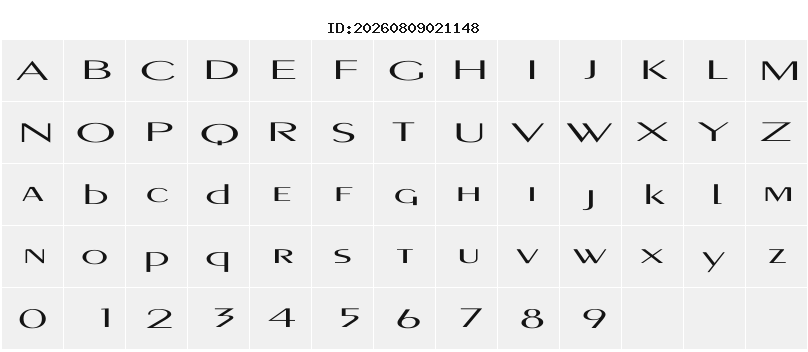
• Font Name: PigNoseTyp Wd
• Full Font Name: PigNoseTyp Wd
About PigNoseTyp Wd.ttf
PigNoseTyp Wd.ttf is a modern, elegant sans-serif font designed for ultimate readability and visual harmony. Perfect for branding, headlines, web design, and print materials.